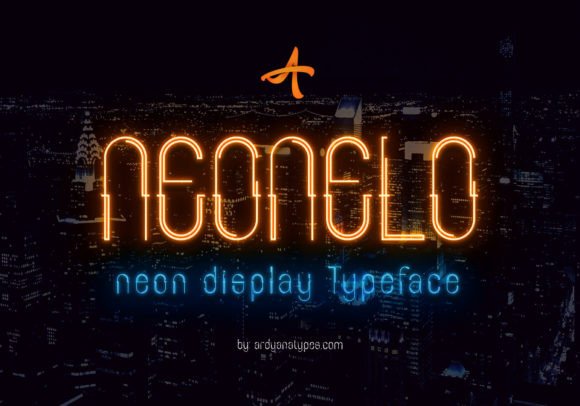
Venture into the realm of radiant brilliance with Neonelo Font, a display font family that ignites your designs with the captivating allure of classic neon lights. Created by the ingenious minds at ardyanatypes, Neonelo possesses a remarkable retro style, adorned with extraordinary shapes and the ability to harness the dazzling effects of vibrant neon illumination.
Immerse yourself in the boundless possibilities that Neonelo presents. Unveil its true potential in an array of design projects, effortlessly transforming posters, business cards, logos, signs, and more into mesmerizing masterpieces. Witness the transformation as ordinary designs morph into radiant spectacles, captivating the attention of your audience with an irresistible charm.
Neonelo's versatility extends beyond mere aesthetics; it is a font meticulously crafted to deliver exceptional functionality and ease of use. Its characters dance across the screen, seamlessly adapting to various design concepts and themes. Whether your vision demands a bold and commanding presence or a subtle yet striking touch, Neonelo rises to the occasion, effortlessly fulfilling your creative aspirations.
Indulge in the nostalgia of retro aesthetics while embracing the innovation of modern design. Neonelo transcends time, effortlessly blending the charm of the past with the dynamism of the present. Its unique style evokes a sense of familiarity, resonating with audiences across generations, while simultaneously injecting a breath of fresh air into contemporary designs.
Unlock the gateway to design excellence with Neonelo Font. As you embark on your creative journey, let Neonelo be your guiding light, illuminating your path towards captivating and unforgettable designs. Experience the fusion of art and technology as you witness the transformation of ordinary concepts into extraordinary masterpieces.